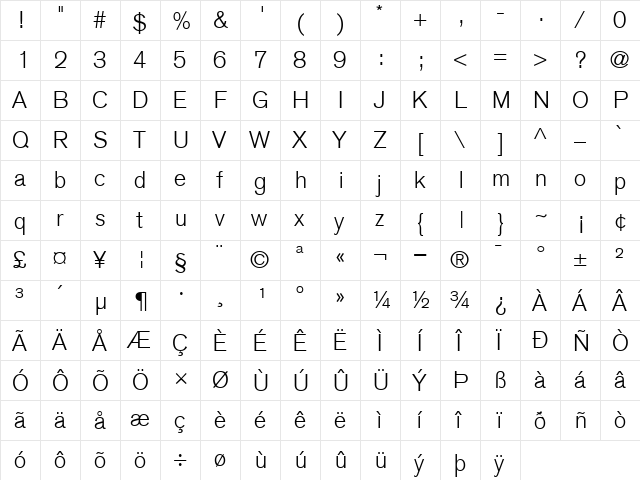
Akzidenz Gr Lt Regular Font Preview
Akzidenz Gr Lt Regular
Akzidenz Gr Lt Regular Font Details
Design Context for Akzidenz Gr Lt Typeface
Akzidenz Gr Lt takes a measured approach to typography — its balanced proportions and neutral character make it a reliable workhorse for both digital and print work. Its slender proportions lend an understated elegance to any composition.
Pro Tip: Pair Akzidenz Gr Lt with a font of contrasting weight or personality to build a more expressive typographic hierarchy.